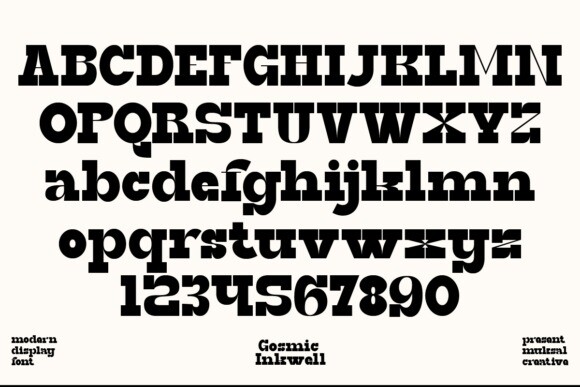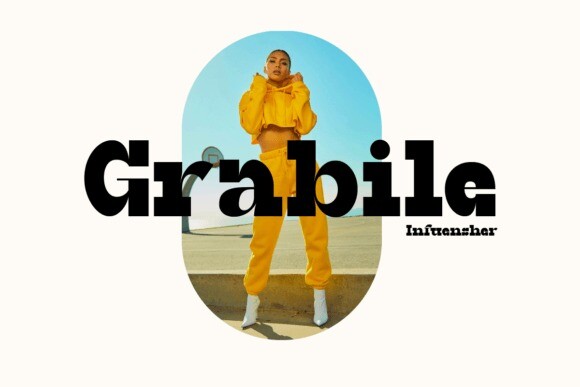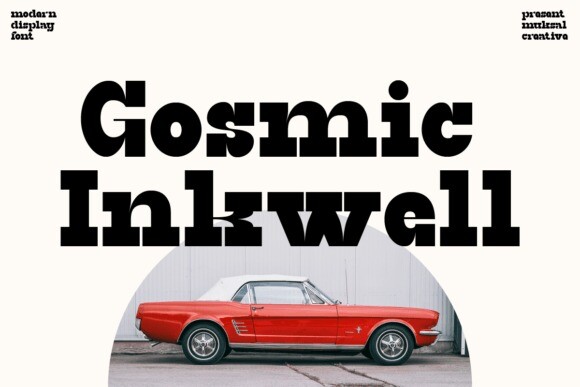
Gosmic Inkwell Font
Designer: Muksal Creative
Gosmic Inkwell Font is a modern-style display font that exudes creativity and innovation. With its unique design inspired by the cosmic universe, this font offers a striking and futuristic aesthetic. Gosmic Inkwell is perfect for adding a touch of modern flair to any design project, particularly suitable for contemporary-themed branding logos.
Its bold and eye-catching appearance captures attention and makes a statement, ensuring that your designs stand out from the crowd. Whether used for digital or print media, Gosmic Inkwell lends a sense of dynamism and sophistication to any project.